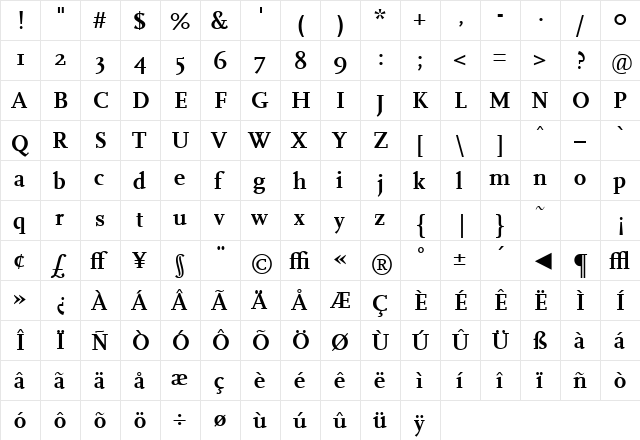
FFScala-Bold Regular Font Preview
FFScala-Bold Regular
FFScala-Bold Regular Font Details
Design Context for FFScala-Bold Typeface
FFScala-Bold is a composed and adaptable typeface that performs quietly and consistently across a wide range of design contexts. Its bold stroke weight gives it real presence on the page.